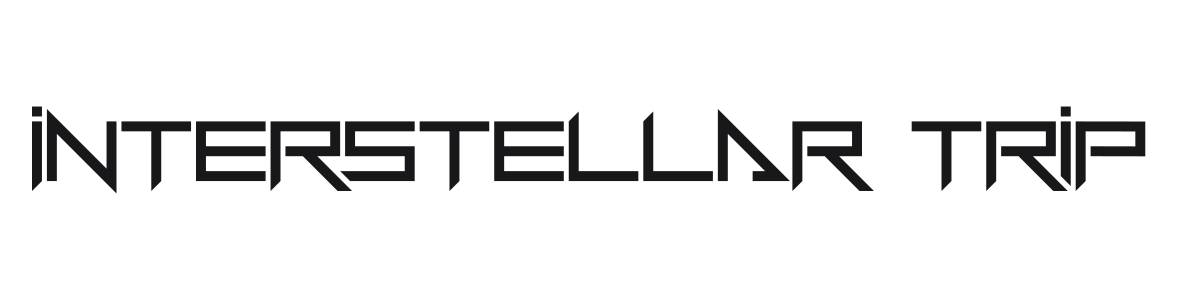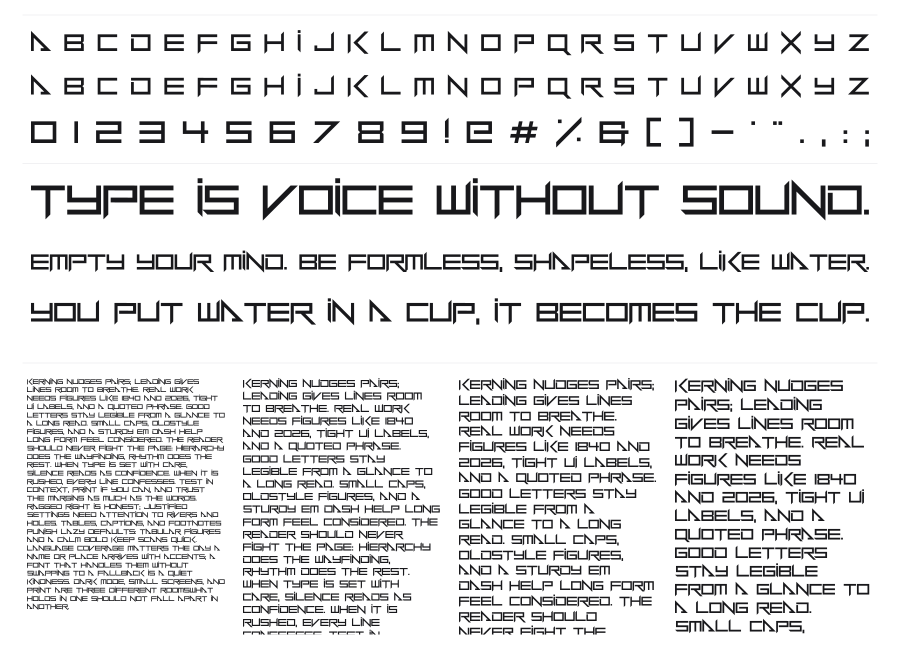
Interstellar Trip
Interstellar Trip is a bold geometric sans with angular, machine-cut construction that reads unmistakably as science fiction. Straight-line segments replace curves entirely, and notched cutaways at terminals give it a spacecraft-panel aesthetic. Strong at large sizes for titles, logos, and anything that needs to feel like it belongs in deep space.